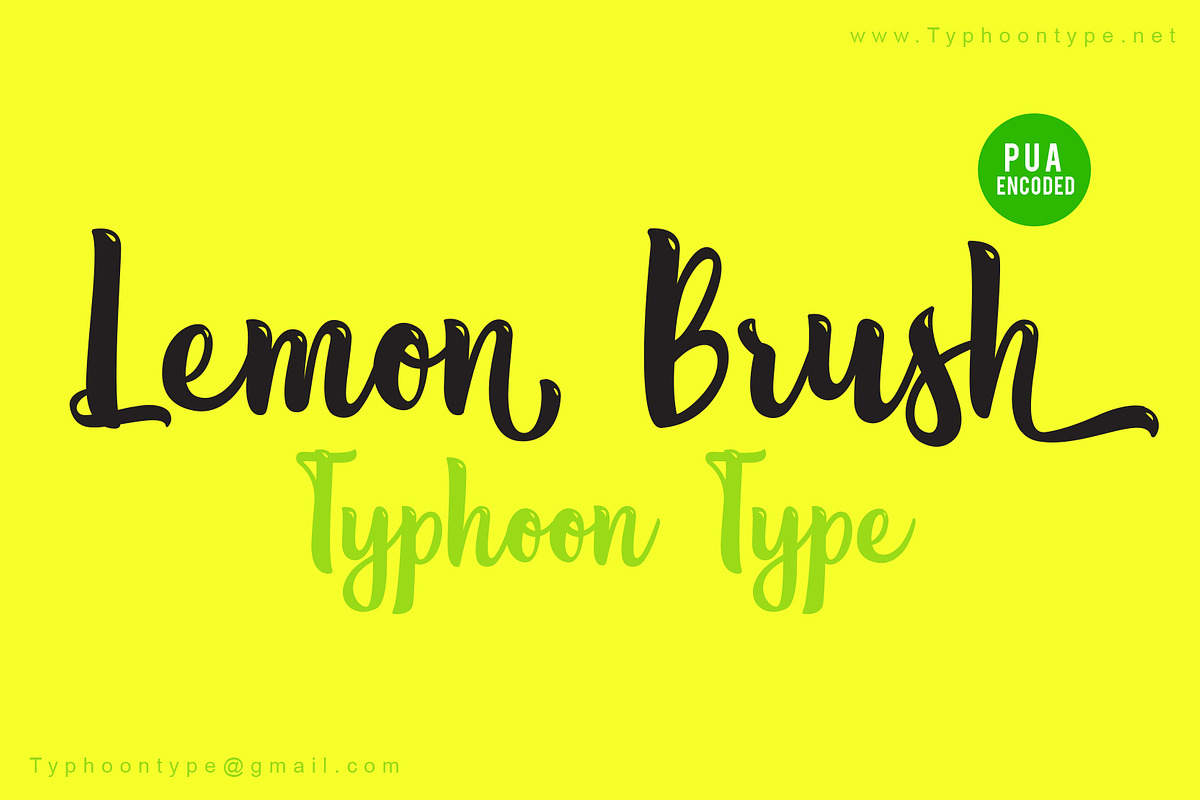
Lemon Brush font
Lemon Brush This Font perfect for logos, name tag, advertising, product packaging, clothing, social media & greeting cards.
Why Lemon Brush font is worth a look
Lemon Brush font by TyphoonStudio fits naturally into Branding, posters, packaging, typography.